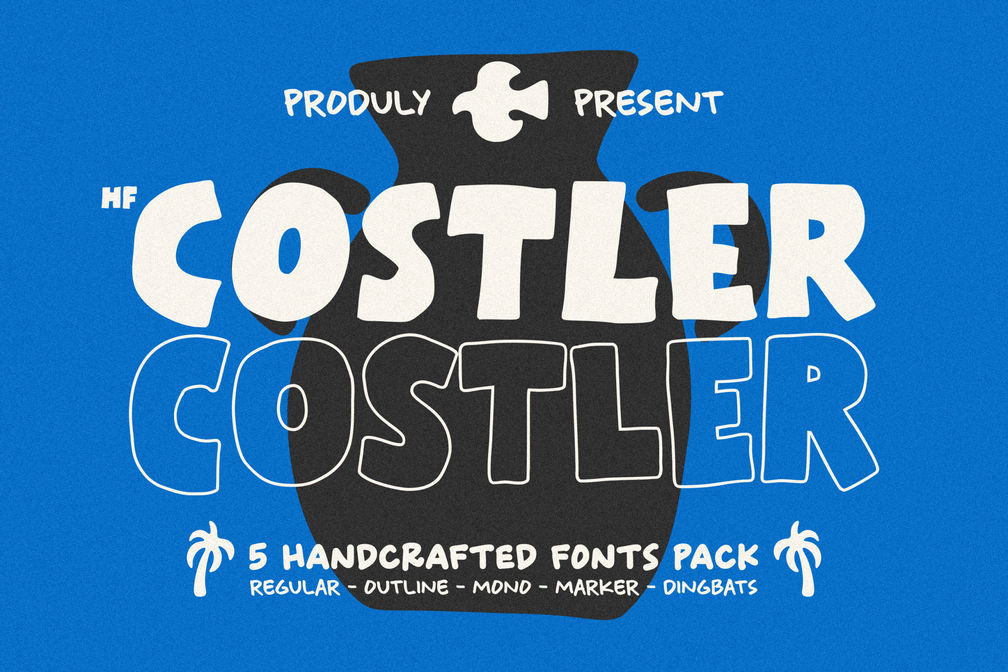
HF Costler – Versatile Hand-Drawn Font Pack
HF Costler - Regular
HF Costler is an all-caps font pack with a natural, hand-drawn style that feels casual and expressive. Designed to bring a playful and organic vibe, this font set is perfect for posters, product packaging, branding, and social media content.
📦 The pack includes 5 distinct styles:
• Costler Regular – bold and solid, with character alternates.
• Costler Outline – an outlined version of Regular, perfect for dynamic layering.
• Costler Marker – looks like real marker strokes, complete with alternates.
• Costler Mono – a clean and consistent monospaced style (no alternates).
• Costler Dingbats – a collection of tropical and organic-themed doodle illustrations.
All fonts use ALL CAPS letters, and most of them include alternates to help create a more natural, handwritten look. HF Costler also comes with a unique dingbats font as a fun extra element.